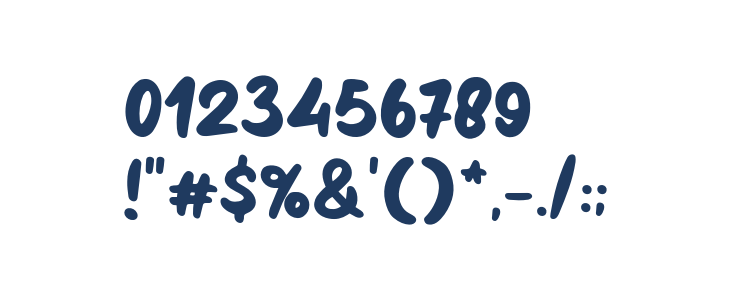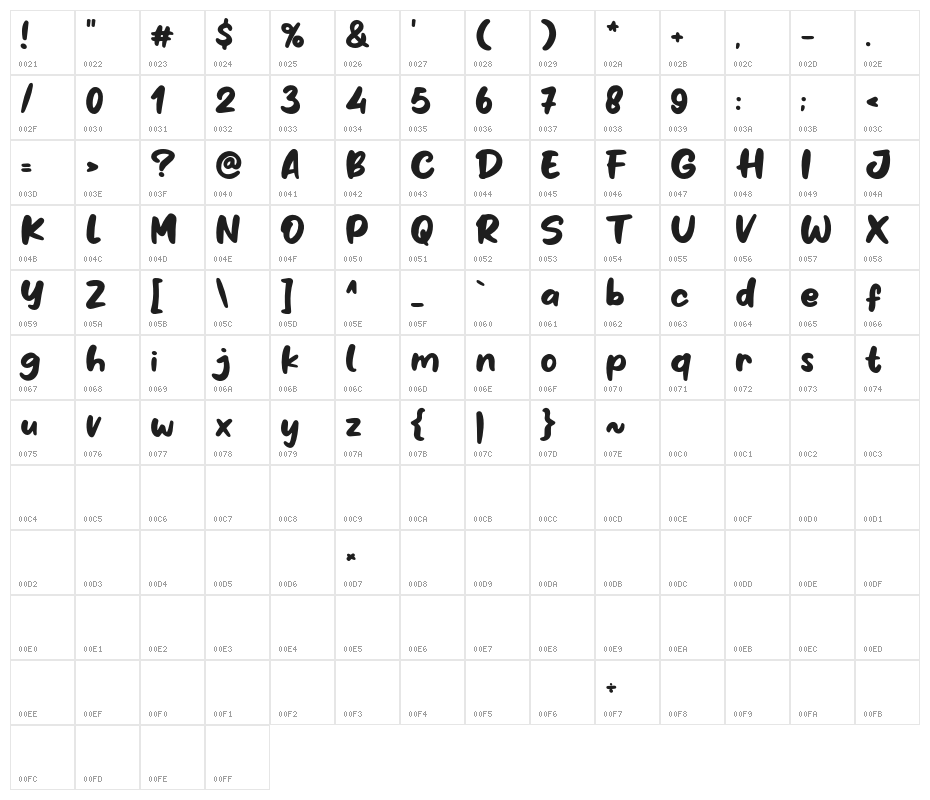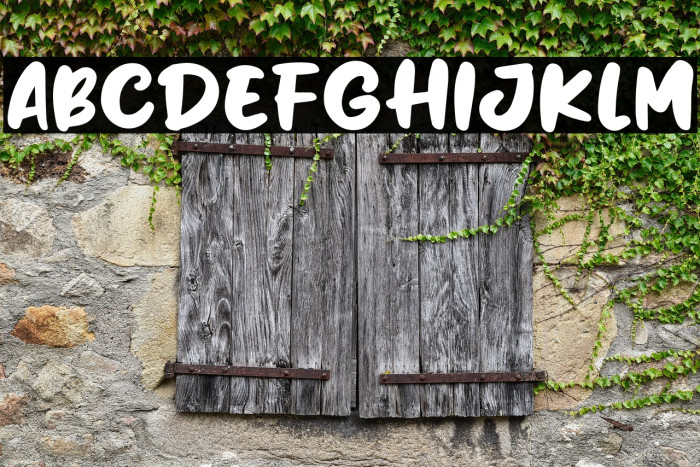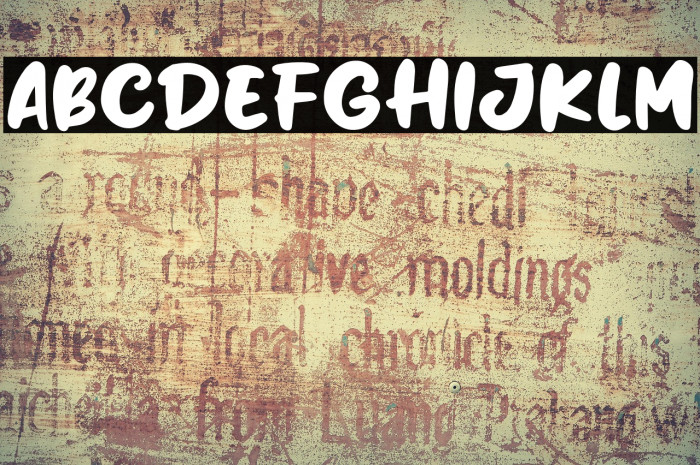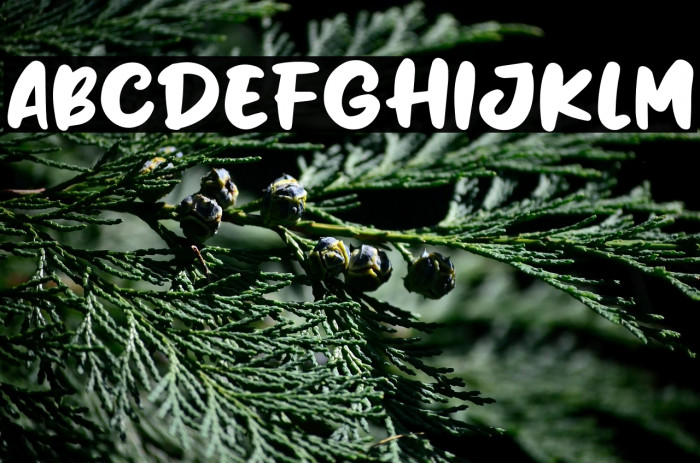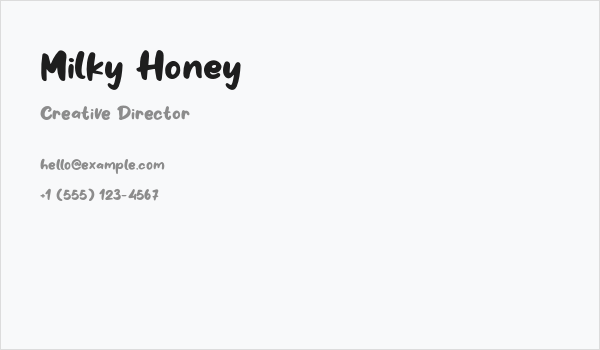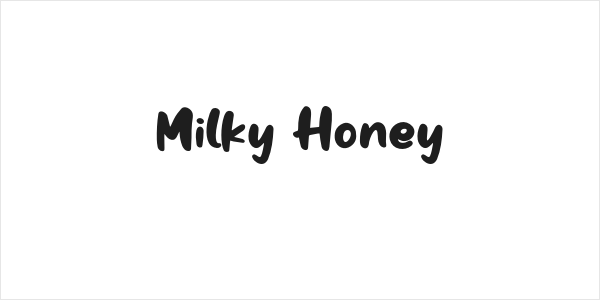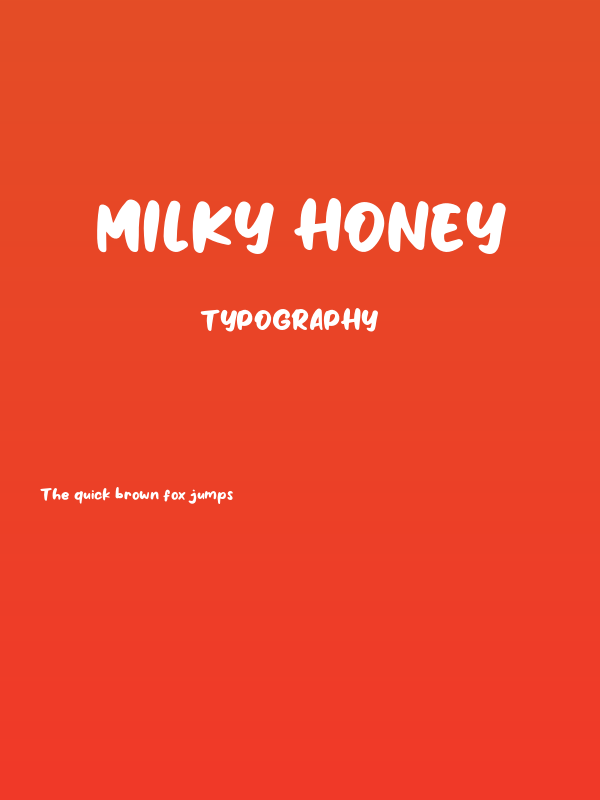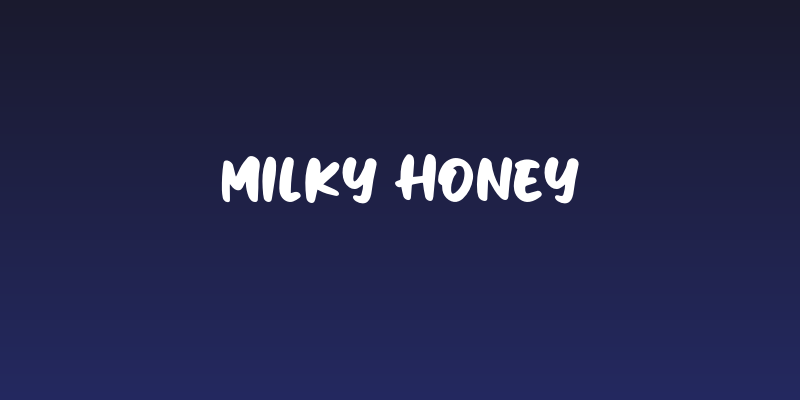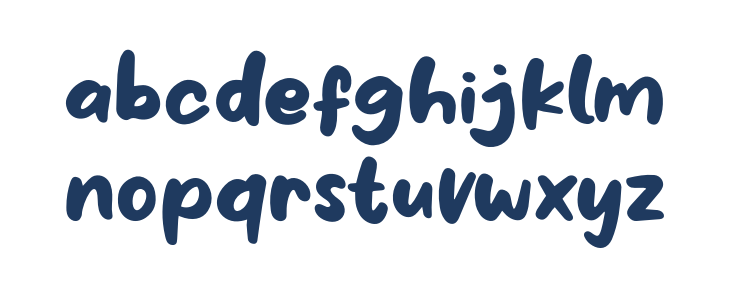
Milky Honey Font
Milky Honey Description
This playful and bold font features rounded, smooth edges and a hand-drawn aesthetic that exudes warmth and friendliness. The uppercase and lowercase letters are consistent in style, with a slightly exaggerated thickness that adds to its charm. The numerals and special characters maintain the same whimsical quality, making the font versatile for various creative applications. Its informal and approachable design is perfect for projects that require a touch of personality and fun. The font's overall appearance is cohesive, with each character complementing the others seamlessly.
| Proposed Projects | Ideal for children's books, playful branding, greeting cards, and social media graphics. |